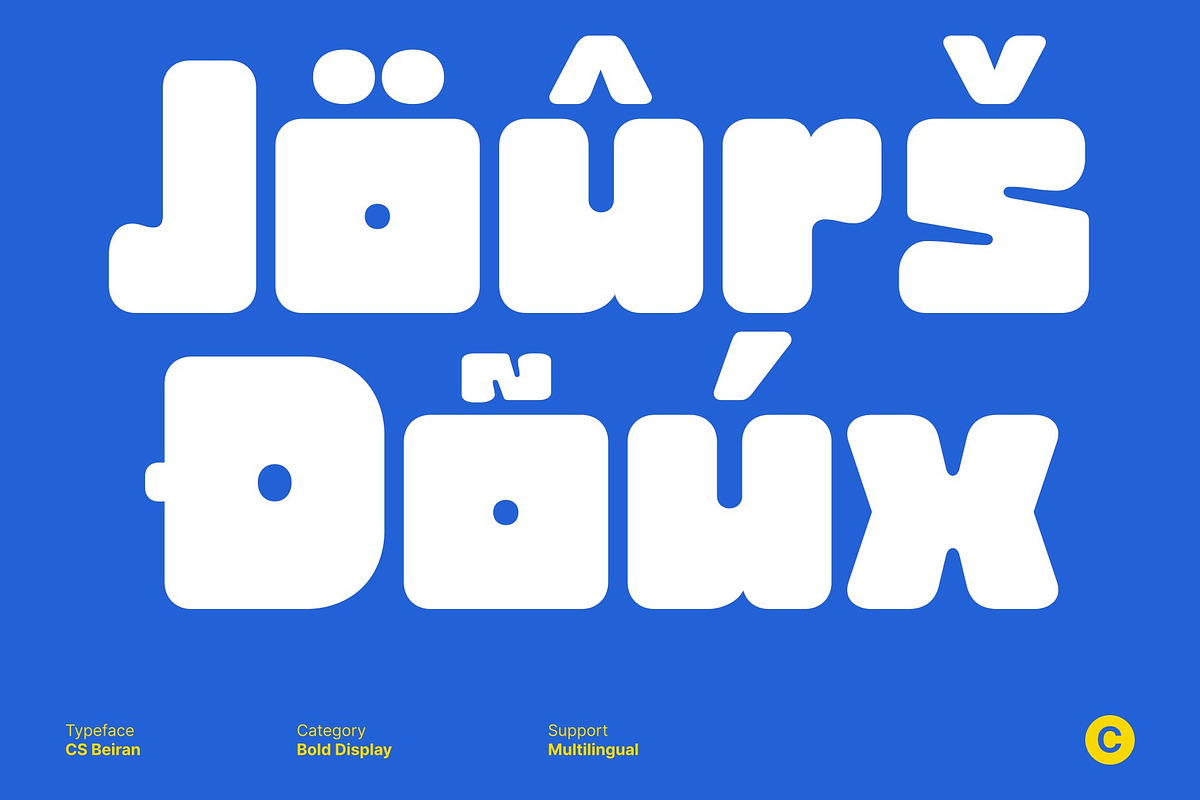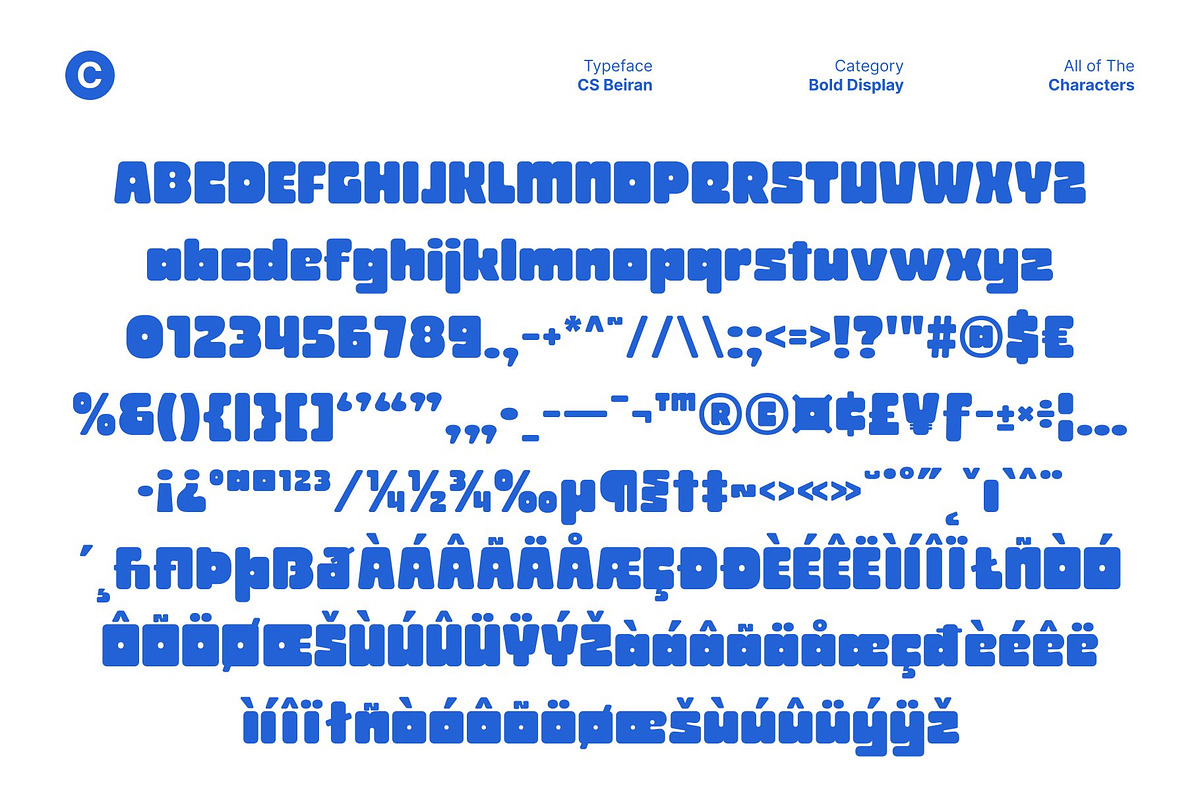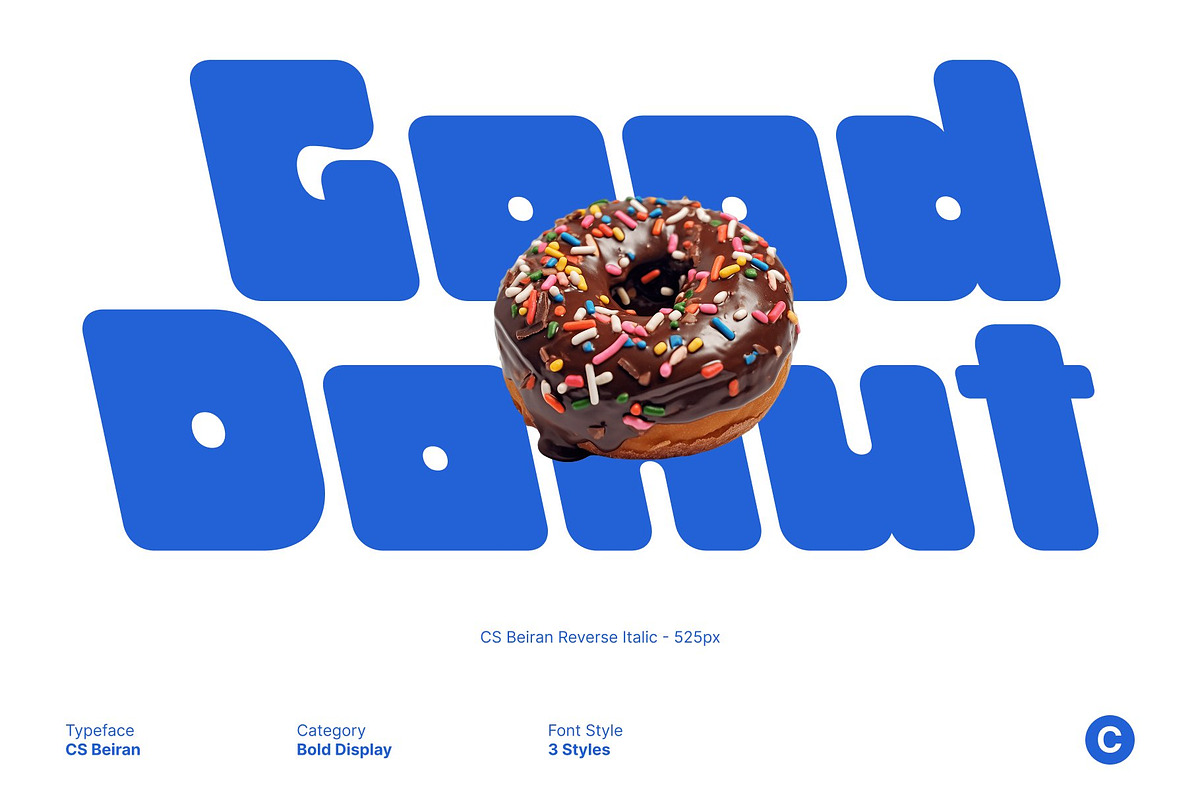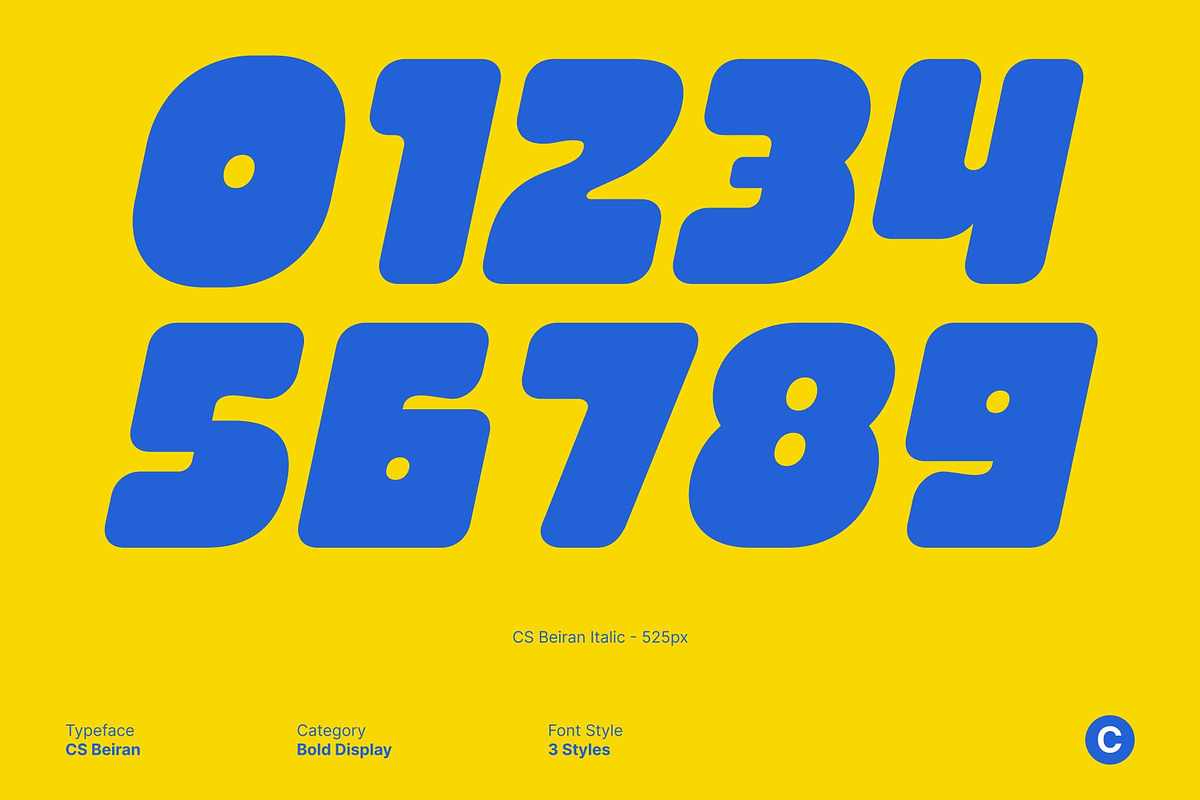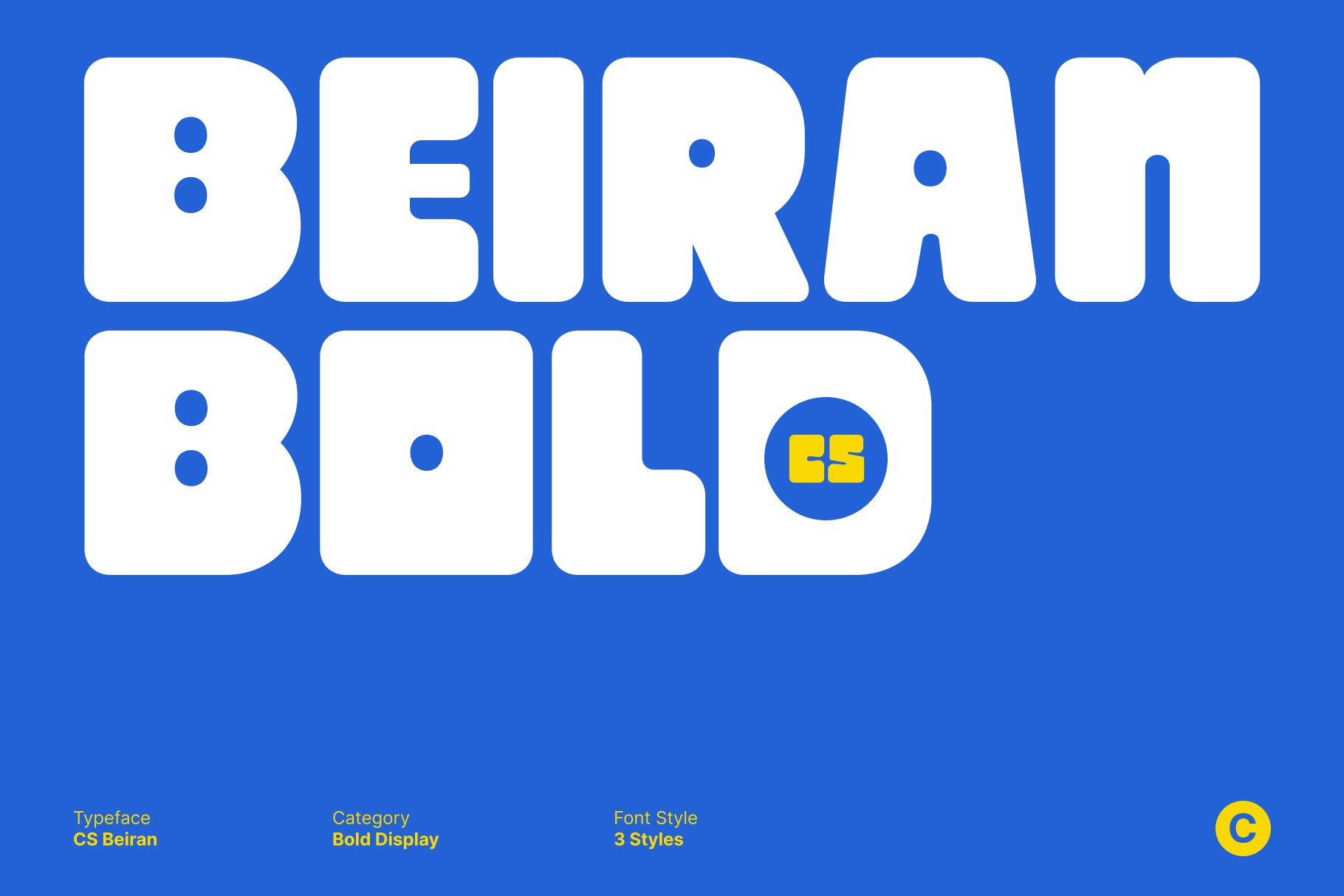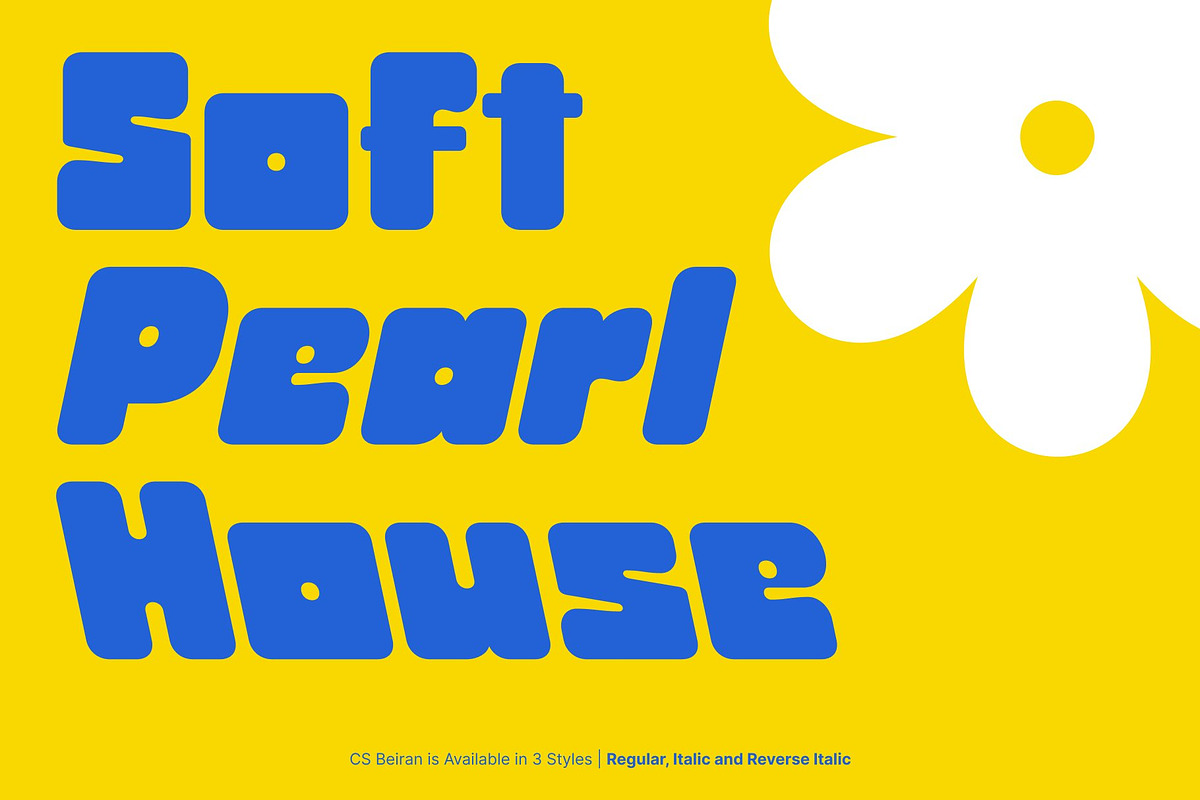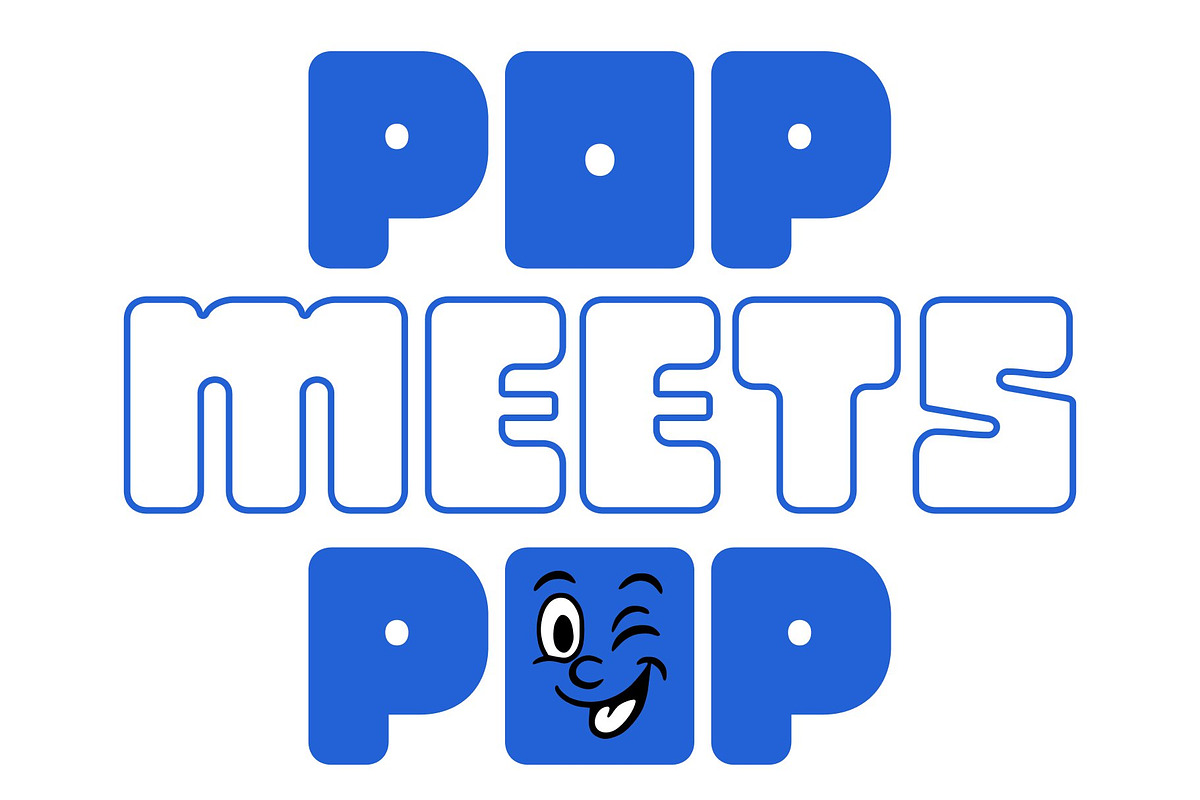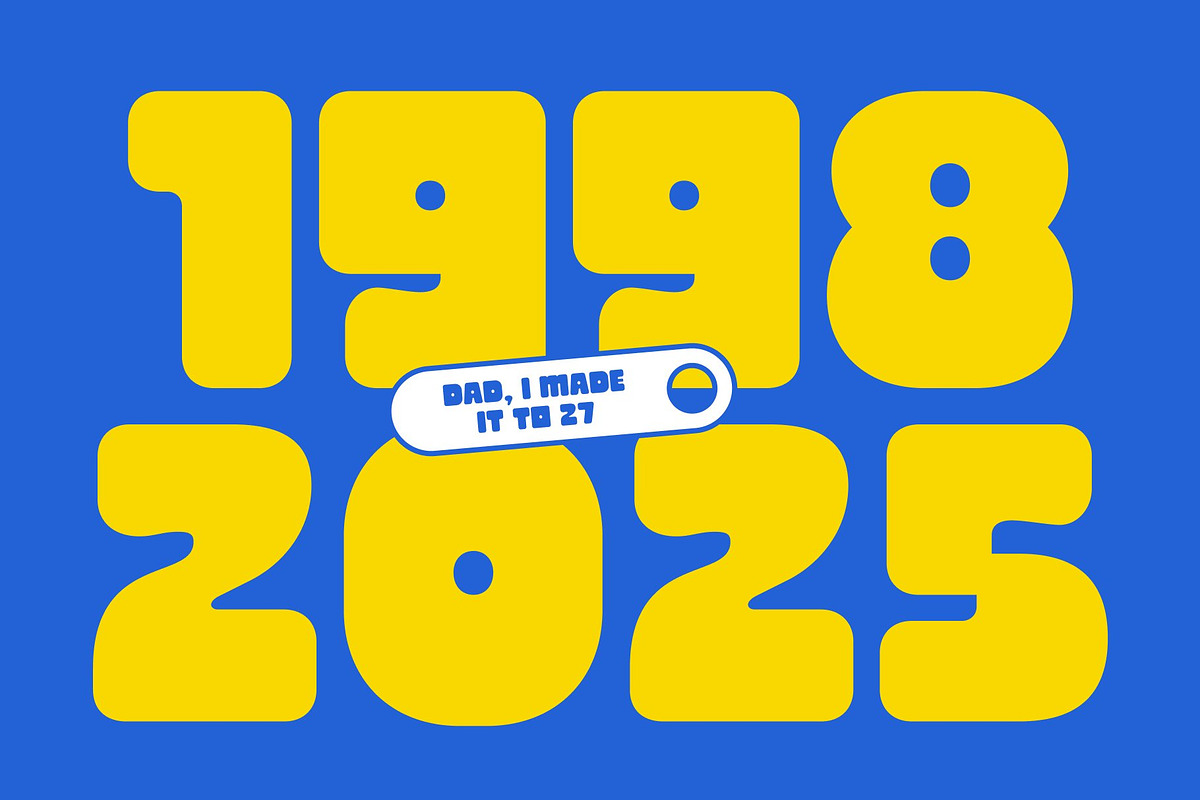
CS Beiran – Chunky Font
CS Beiran – Bold Charm with a Retro Twist
Chunky Display Font Full of Personality This is a bold and chunky display font designed to make an instant impression. Its strong, blocky letterforms radiate confidence and modern appeal, while subtle funky details introduce a playful, retro-inspired character that gives every design a unique visual voice.
Thick Strokes for Strong Visual Impact Built with thick strokes and clean lines, this font delivers excellent legibility and commanding presence. Its sturdy design ensures your text stands out, making it a go to choice for attention grabbing headlines, posters, and impactful branding visuals.
Playful Meets Modern Aesthetics The balance between geometric precision and quirky charm gives this font a fresh, versatile look. It feels both nostalgic and forward-thinking perfect for projects that aim to blend fun creativity with confident modernity.
Perfect for Eye-Catching Creative Projects From product packaging and branding to social media graphics and editorial layouts, this font brings bold charm and lively energy to any creative project. Whether you’re designing for retro flair or contemporary impact, this font ensures your message stands tall and stylish.